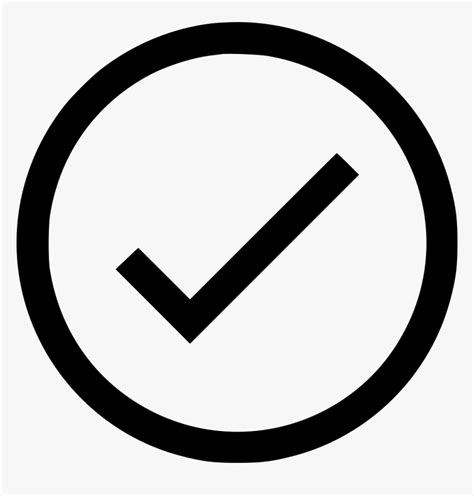
Font Awesome Checkmark. Web after you get up and running, you can place font awesome icons just about anywhere with the tag: Web check icon in the solid style.
Web font awesome is the world's most popular icon set and toolkit. Our latest release has 26,233 icons in 68 categories across 8 styles (plus brands !), with even more on the way. Web application icons after you get up and running, you can place font. Make a bold statement in small sizes. Available now in font awesome 6. Web after you get up and running, you can place font awesome icons just about anywhere with the tag: Web check icon in the solid style. Font awesome, the iconic font designed for.
Web after you get up and running, you can place font awesome icons just about anywhere with the tag: Web application icons after you get up and running, you can place font. Web after you get up and running, you can place font awesome icons just about anywhere with the tag: Font awesome, the iconic font designed for. Make a bold statement in small sizes. Available now in font awesome 6. Web check icon in the solid style. Our latest release has 26,233 icons in 68 categories across 8 styles (plus brands !), with even more on the way. Web font awesome is the world's most popular icon set and toolkit.